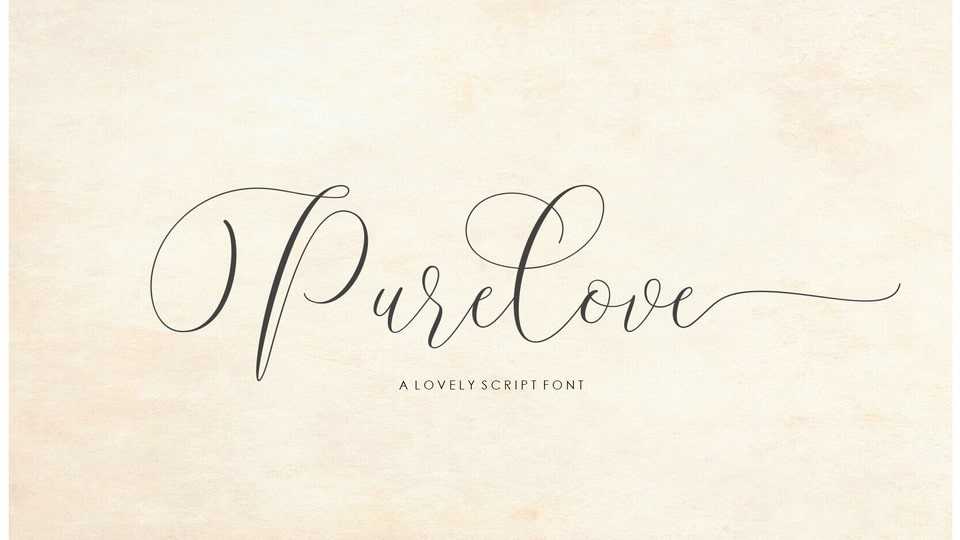
Download Purelove font, a beautiful and elegant typeface created with a perfect line. Perfect to use for various purposes, like logos, branding, greeting cards, wedding invitations, letterheads and so on.
Designer: Moriztype